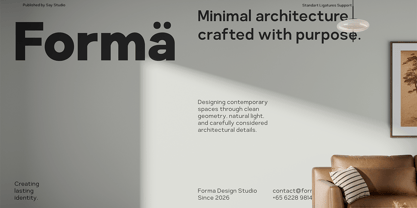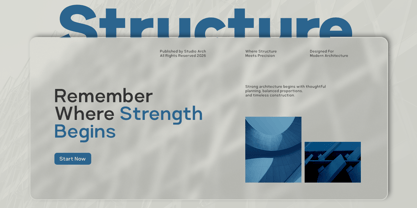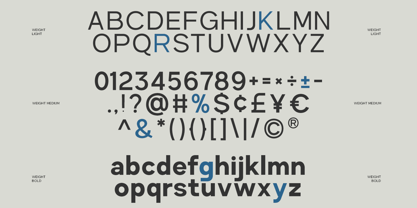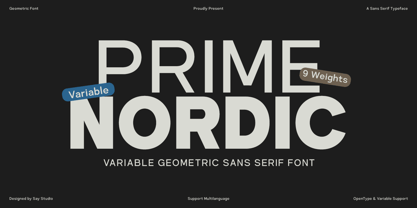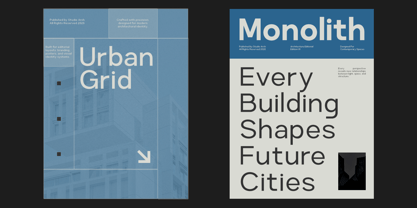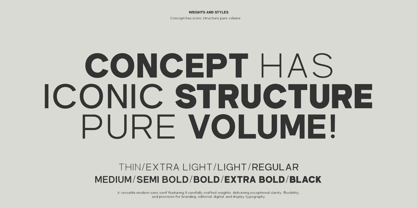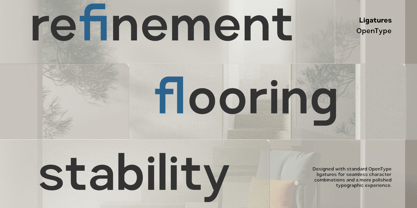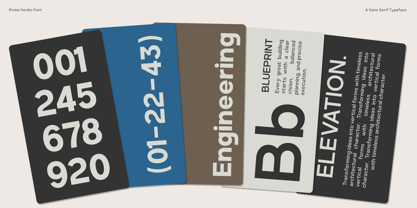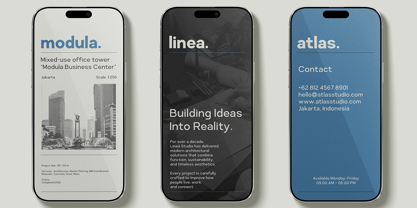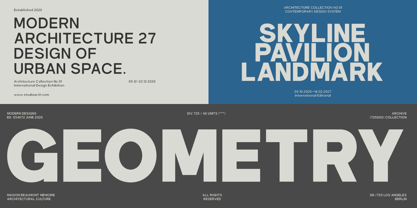
Prime Nordic
The Prime Nordic Font Family was designed by Mussyayin and published by Say Studio. Prime Nordic contains 18 styles and family package options. More about this family
Prime Nordic is a modern variable font family built around clean geometric forms, precise proportions, and a refined contemporary aesthetic. Designed for flexibility and visual consistency, this versatile sans serif family gives you greater control over typography across a wide range of creative projects.
With its variable font technology and flexible typographic system, Prime Nordic allows you to explore different weights and styles within a single font family. Its clean structure makes it especially suitable for architecture, branding, editorial design, corporate identity, technology, websites, posters, presentations, packaging, and modern visual communication.
Prime Nordic combines functionality with a strong modern presence, making it ideal for both display headlines and professional text applications. The font family providing flexible options for print, branding, and digital projects.